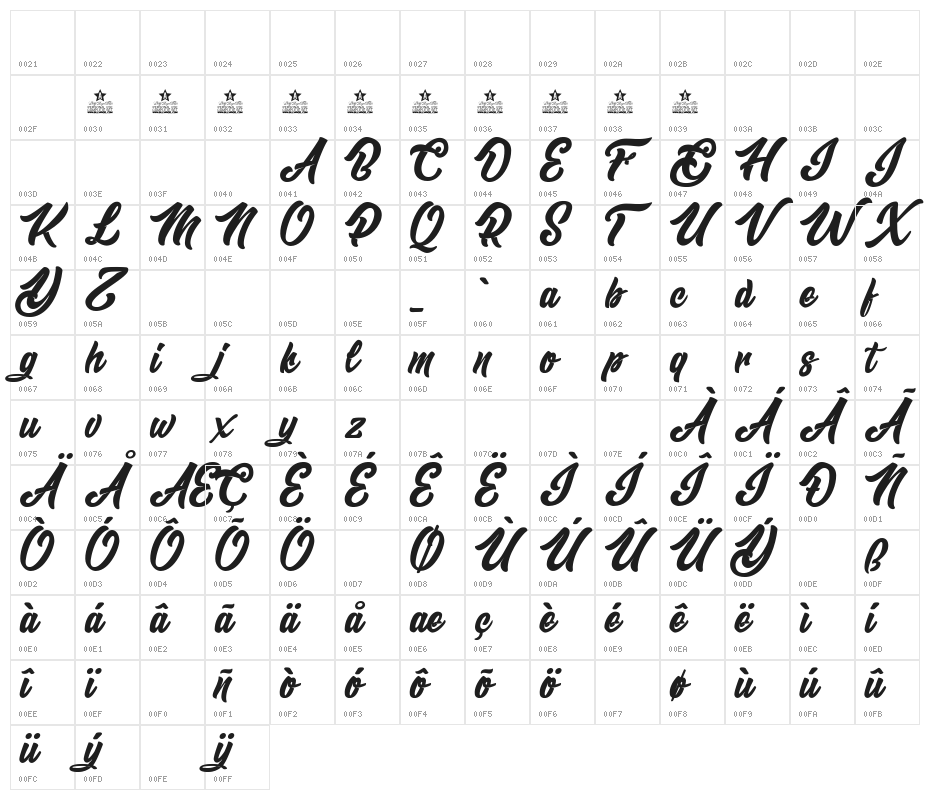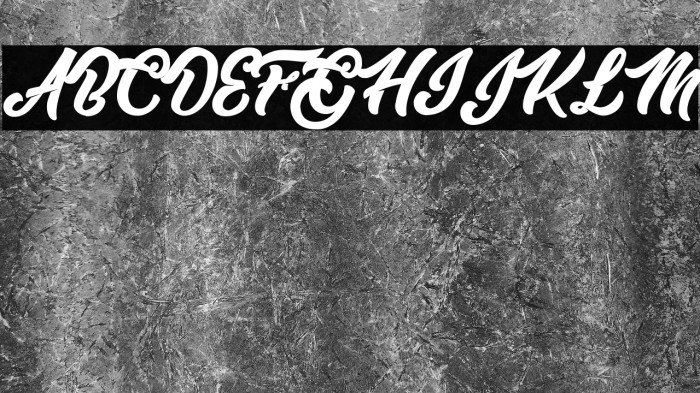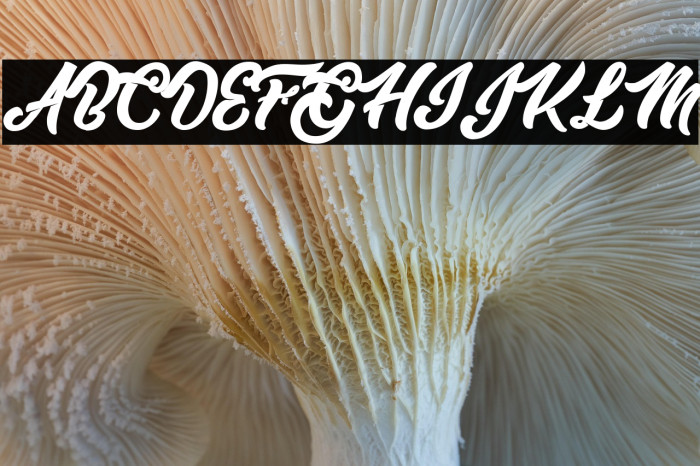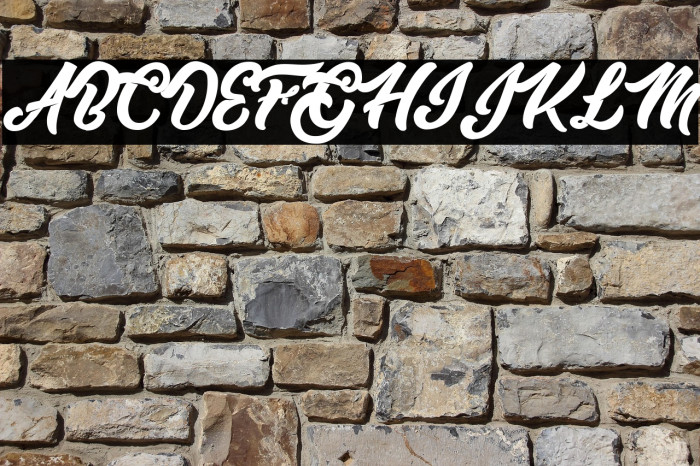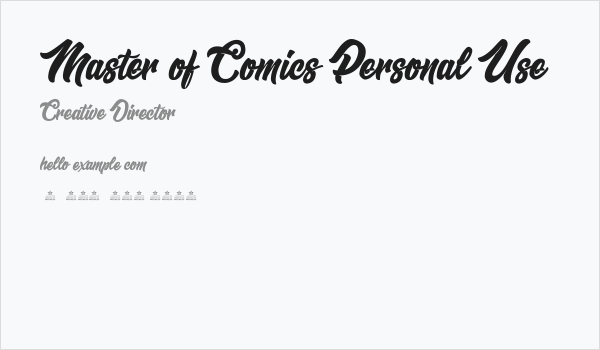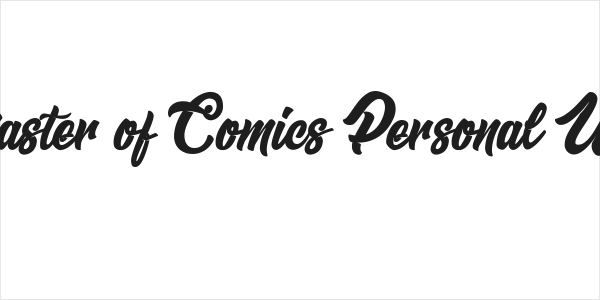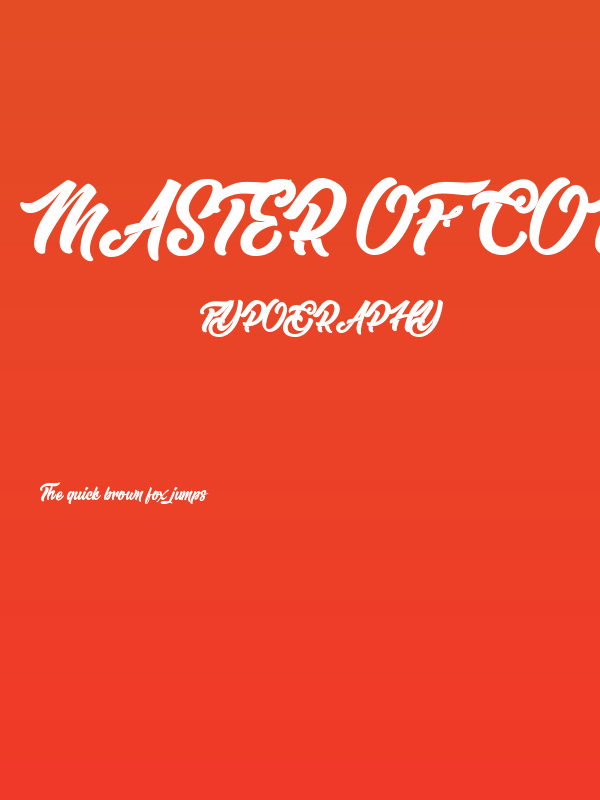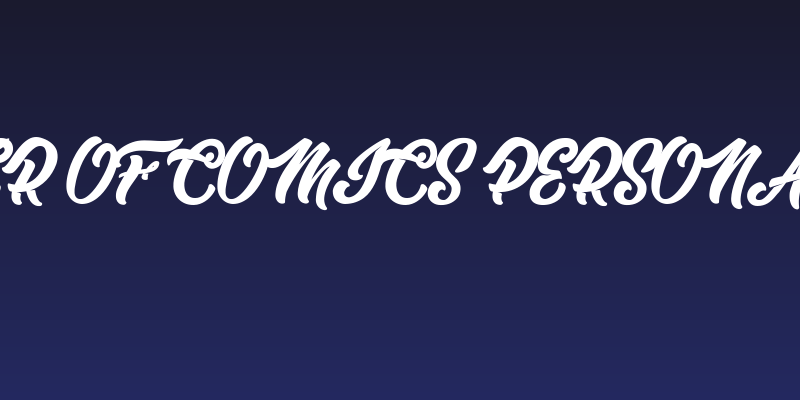
Master of Comics Personal Use Font
Master of Comics Personal Use Description
This font features a bold, dynamic script style with a strong presence. The characters are interconnected, creating a fluid and cohesive look. The uppercase letters are particularly ornate, with sweeping curves and flourishes that add a sense of elegance and movement. The lowercase letters maintain this fluidity, with a slightly more compact design. The numbers and special characters are consistent with the overall style, ensuring a harmonious appearance across all text. This font's bold strokes and high contrast make it stand out, making it ideal for attention-grabbing designs.